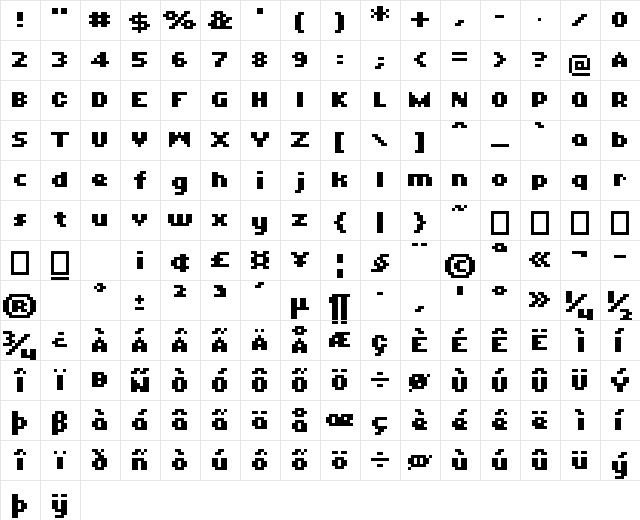
01Logistix Bold
Design Context for 01Logistix Typeface
01Logistix is a composed and adaptable typeface that performs quietly and consistently across a wide range of design contexts. The heavy weight commands attention and anchors typographic hierarchies.